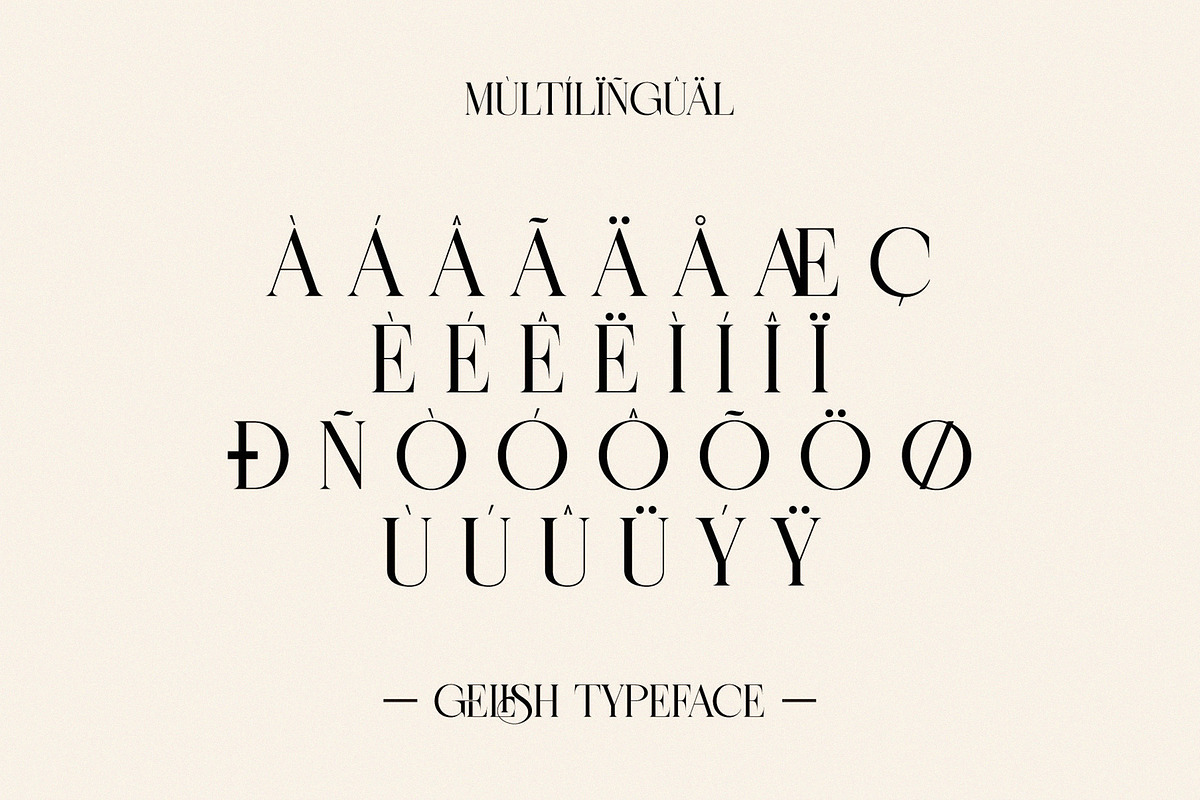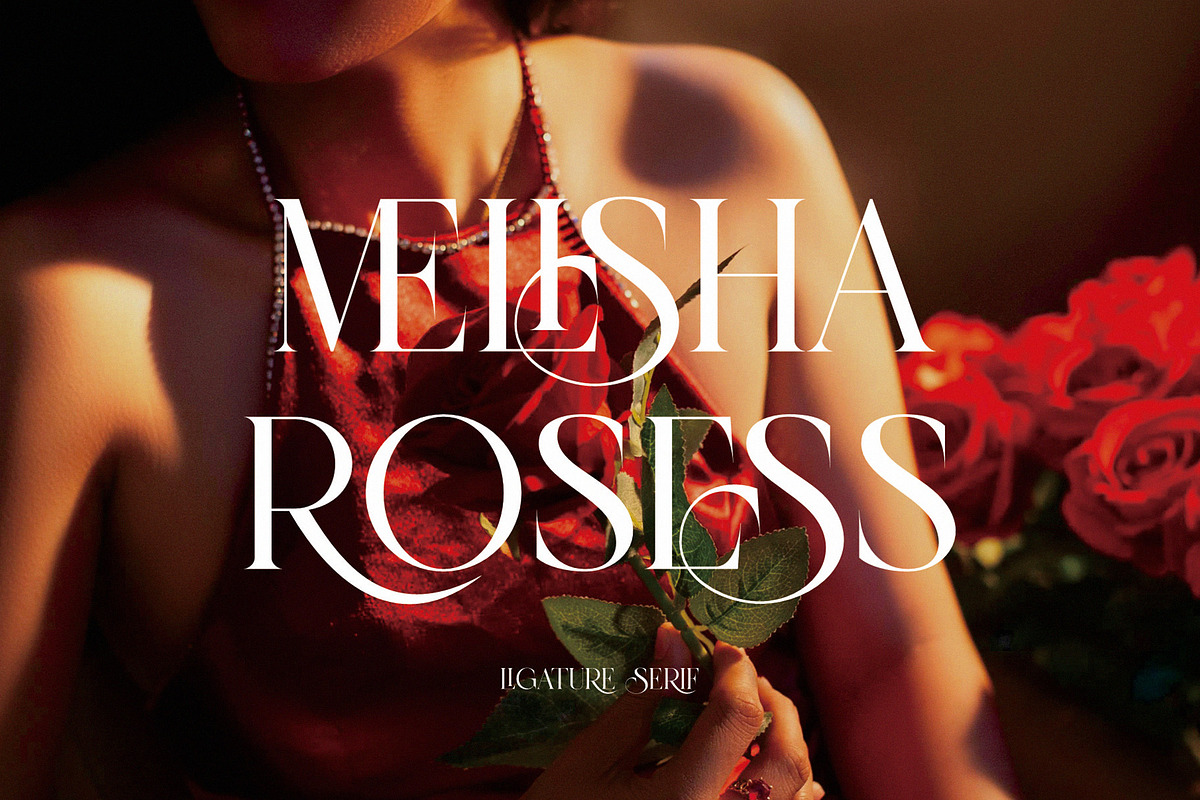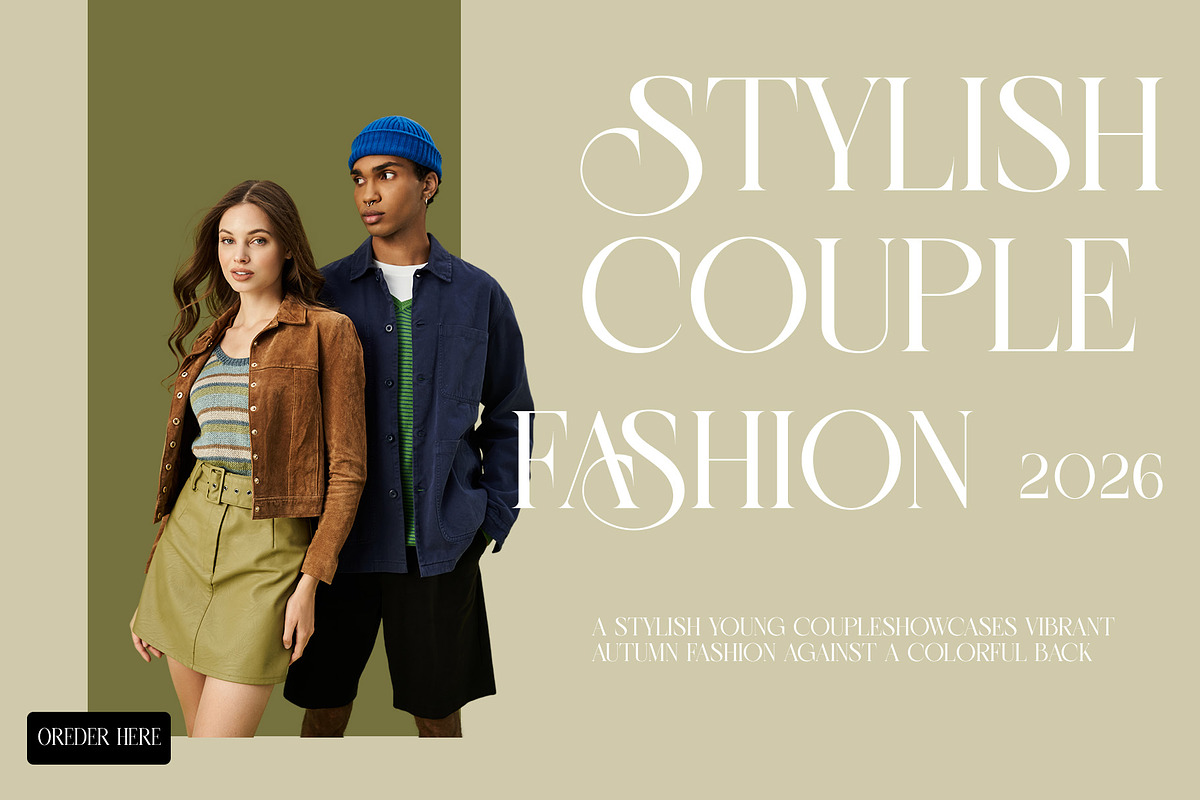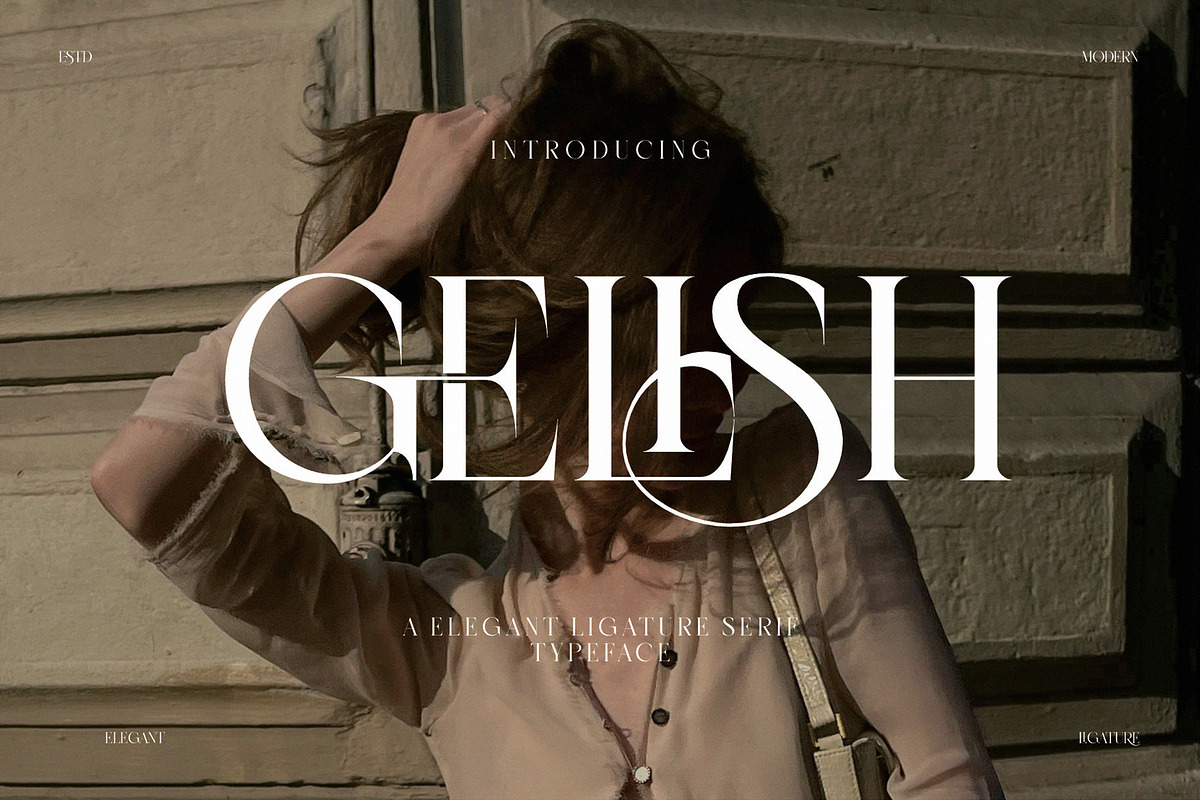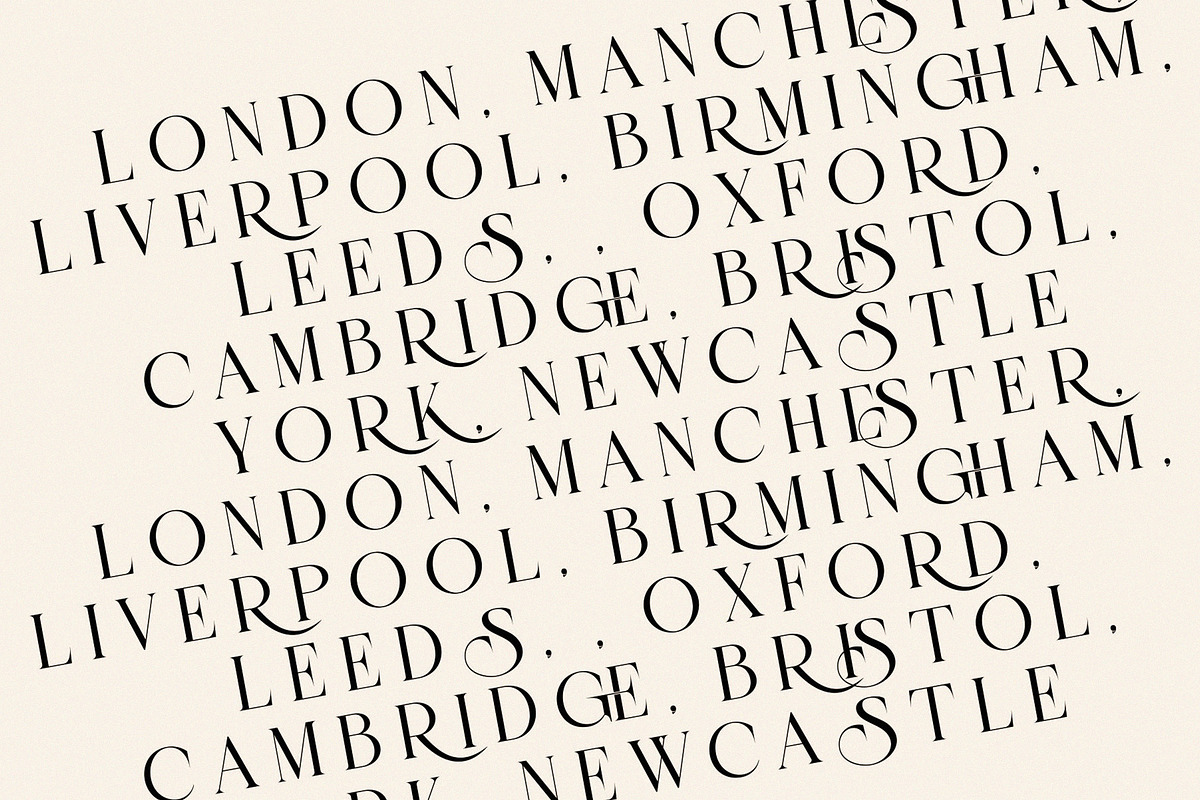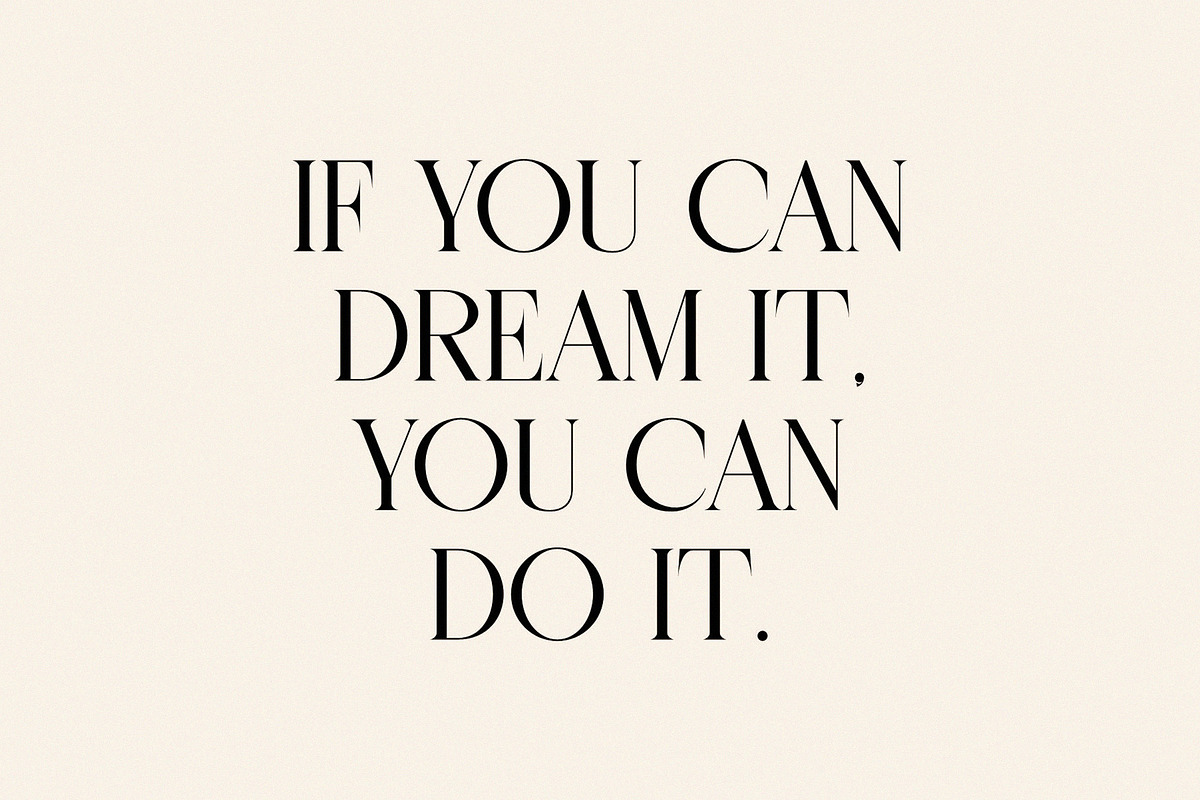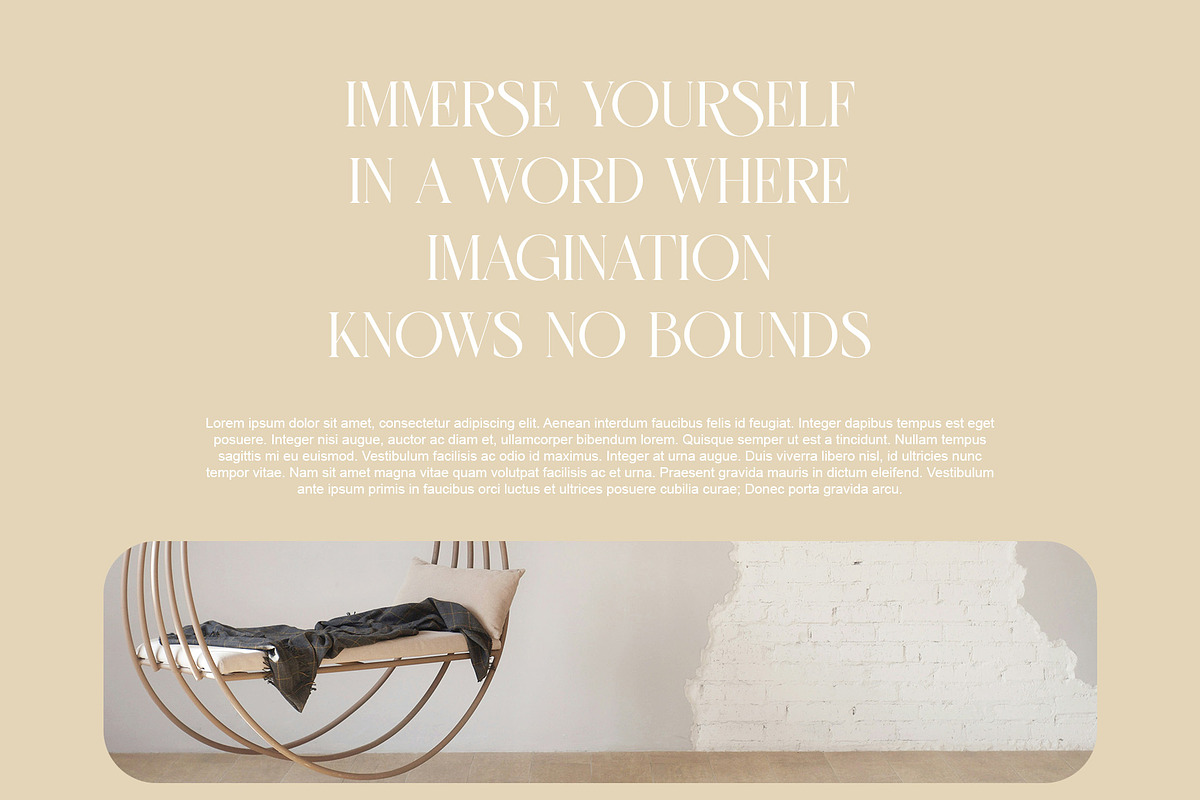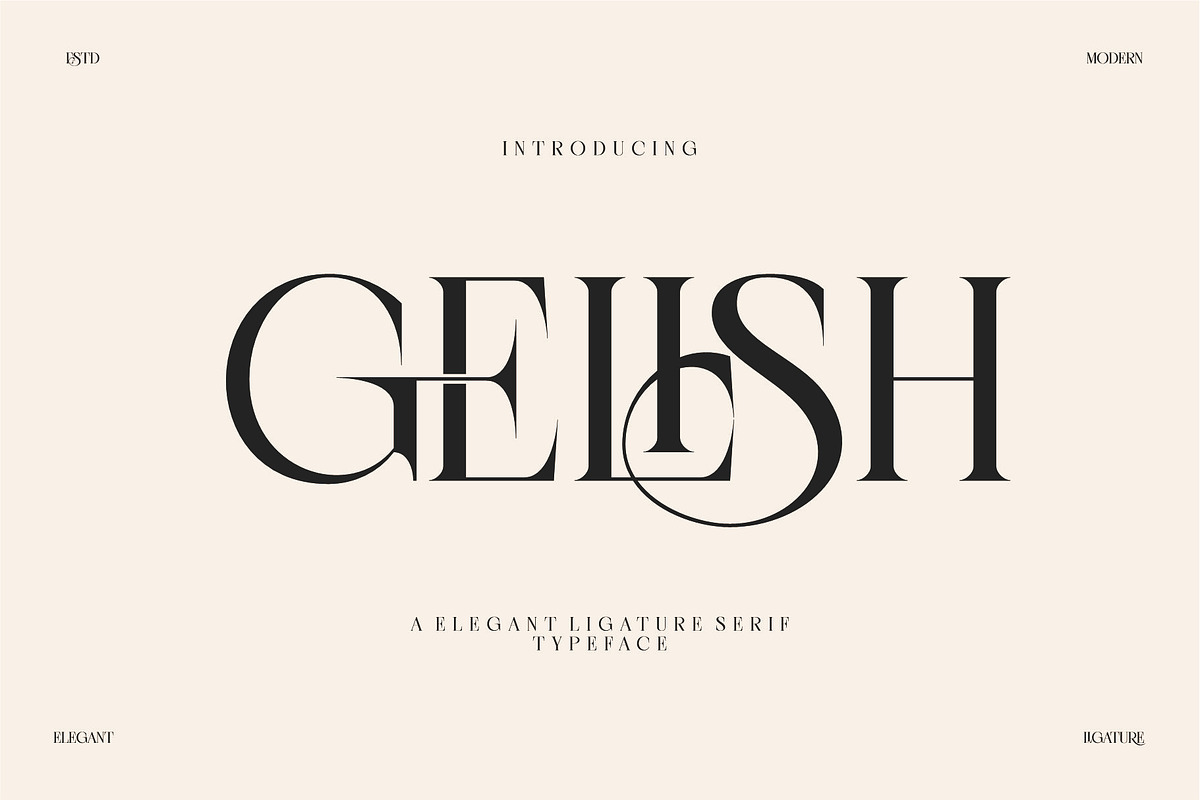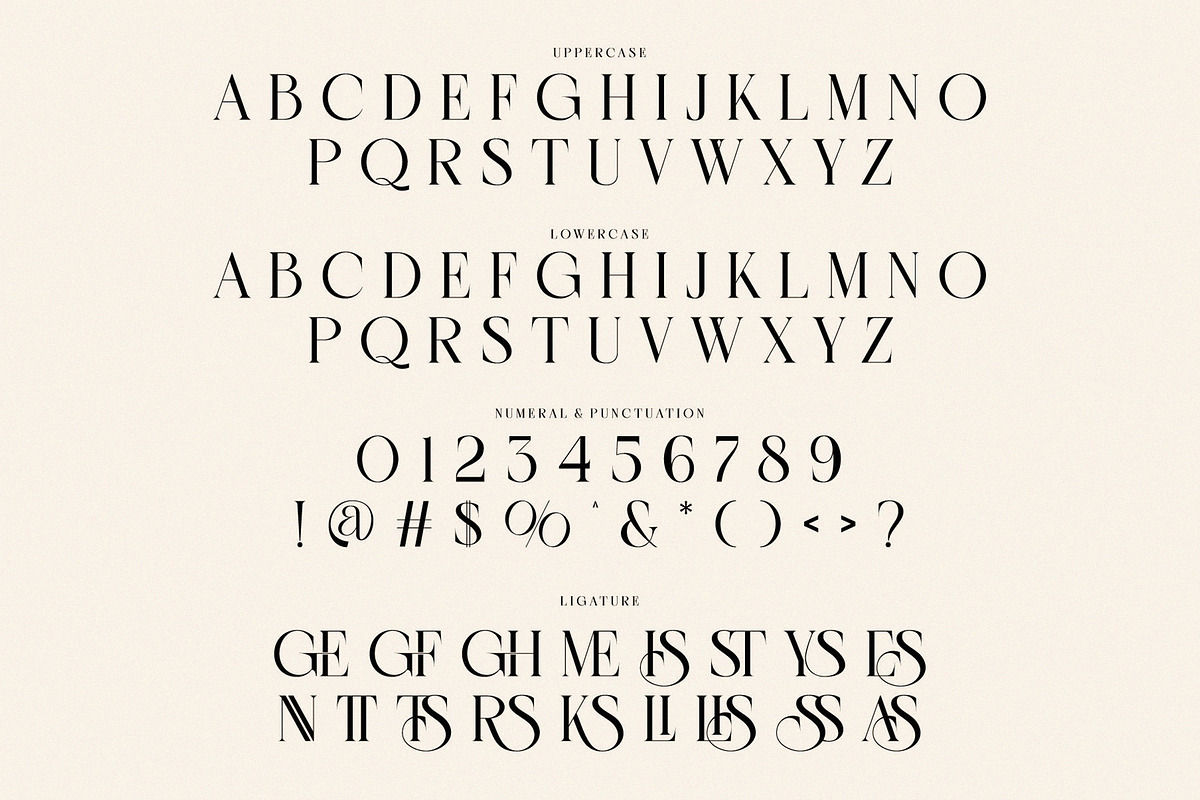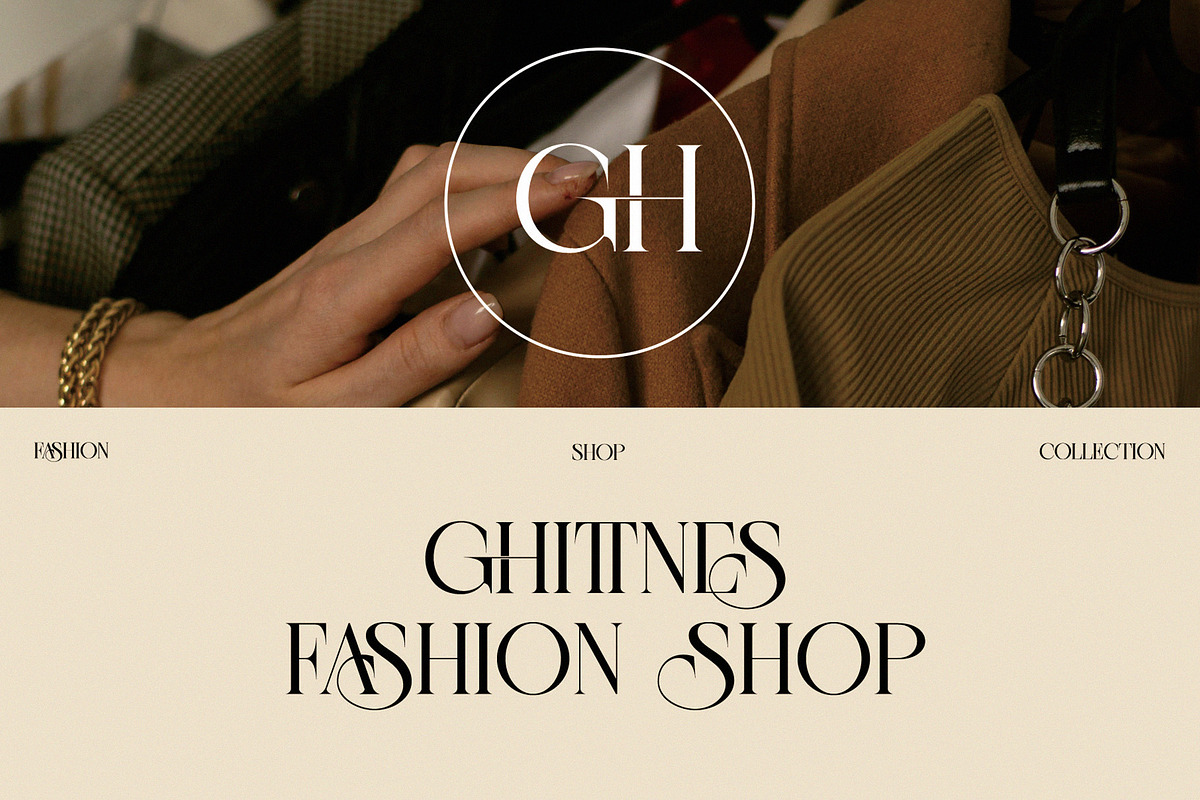
GELISH Elegant Ligature Serif
Gelish is a refined ligature serif font that blends timeless elegance with a subtle modern touch. Each character is crafted with precision, while its graceful ligatures create a smooth and harmonious flow. Perfect for premium branding, editorial layouts, and invitations, Gelish delivers a sophisticated and luxurious feel.